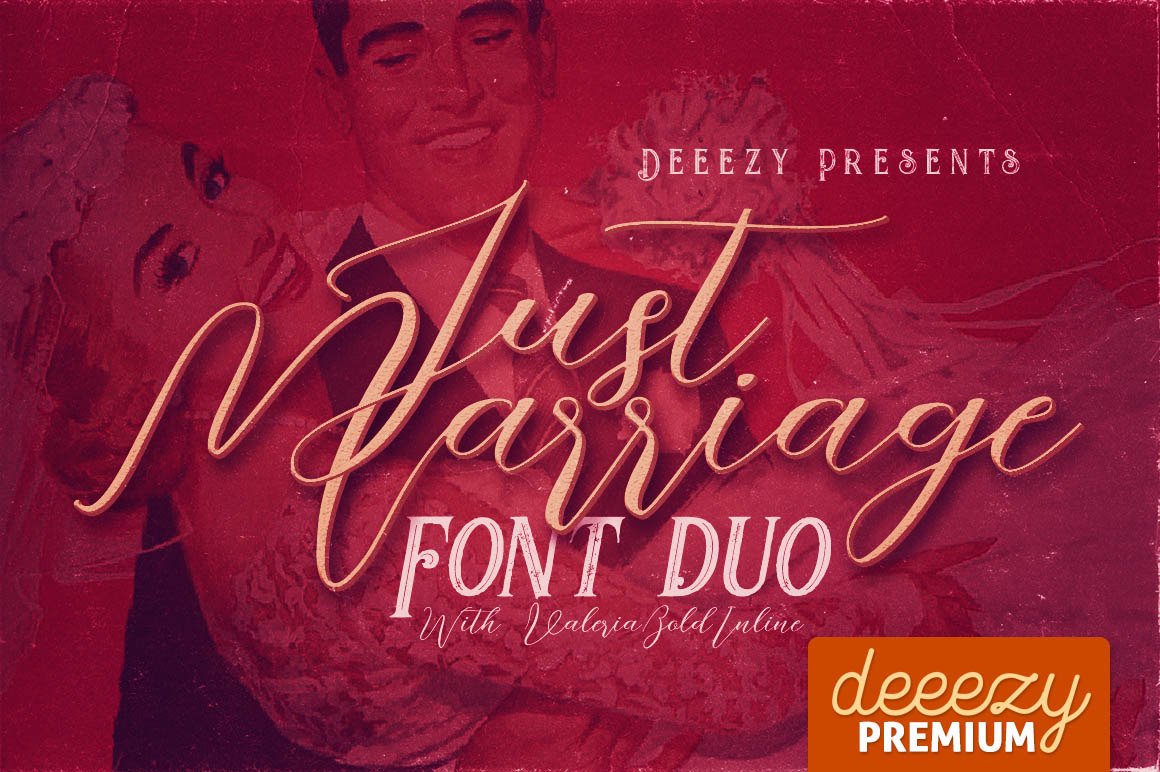
Just Marriage Font Duo
Cool retro or vintage style font duo for your new projects. First font is elegant script font with multi language support and lot of stylistic alternates. Second font is cool display font with regular and grunge version and without multi language support.